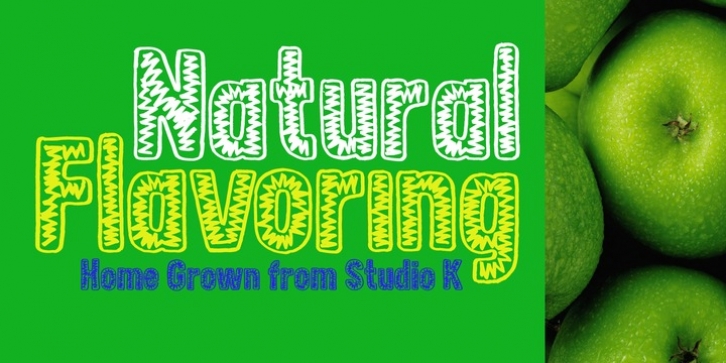
Home Grown was designed by Keith Tricker and published by Studio K. Home Grown contains 1 style.
Home Grown is a hand-drawn font that is fresh, immediate and informal. As the applications here show it is especially well suited to food packaging and natural or organic products in particular. However, it can be used wherever a friendly, approachable feel is sought after.